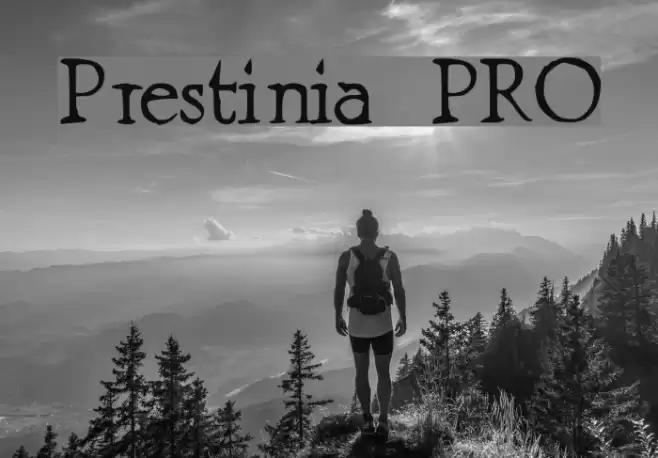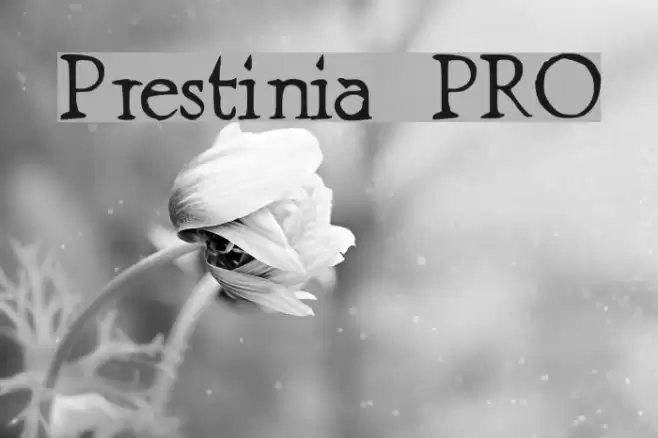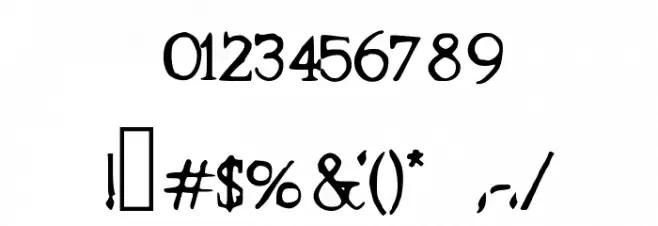
Prestinia PRO Font
Prestinia PRO Description
This font features a unique blend of classic and modern elements, characterized by its distinct, slightly irregular strokes that give it a hand-drawn appearance. The uppercase letters are bold and commanding, with a slight serif that adds a touch of elegance. The lowercase letters maintain a consistent style, offering a playful yet sophisticated look. Numbers and special characters are crafted with the same attention to detail, ensuring a cohesive appearance across all glyphs. The font's overall design is both artistic and functional, making it suitable for a variety of creative applications.
A distinctive font with a hand-drawn, elegant style and slight serifs from Uncategorized fonts.
- Proposed Projects: Ideal for artistic projects, branding, invitations, and editorial design.
- Overall Style: Artistic and Elegant
- Use Case: Headlines, Logos, Invitations